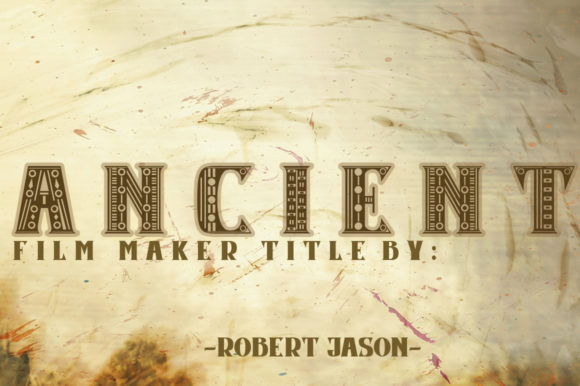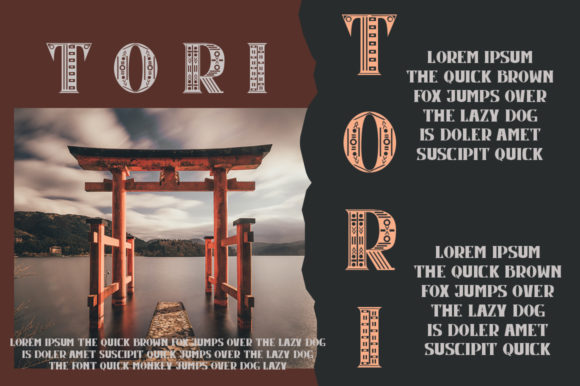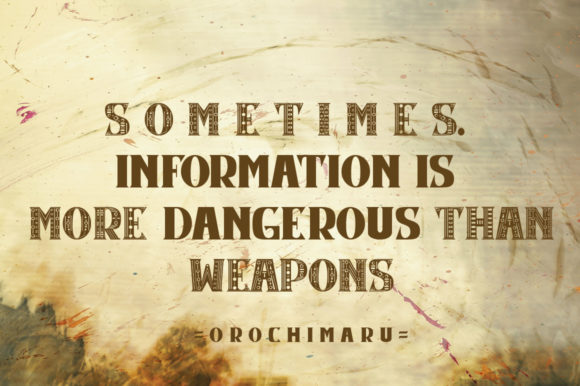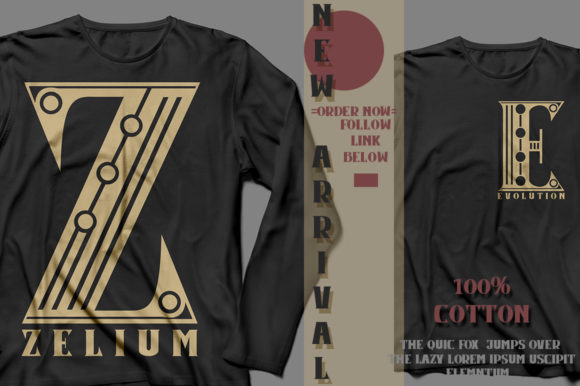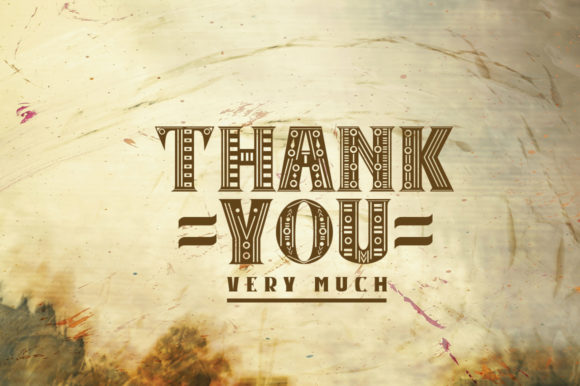
Introduction to Athenos Font
Have you ever stared at a blank page, waiting for inspiration to strike? For designers, that moment is a familiar one. But what happens when that spark of creativity hits, and you know exactly what you want to create – a bold, eye-catching logo, a flyer that screams excitement, or a social media post that stands out from the crowd? That’s where the Athenos Font comes in – a game-changing design resource that’s about to revolutionize your creative projects.
With its futuristic characters and sleek aesthetic, the Athenos Font is the perfect tool for adding a touch of high-quality style to your work. Whether you’re a seasoned pro or just starting out, this font is a valuable addition to your design arsenal – and the best part? It’s free to download and customize to your heart’s content, making it the ideal choice for designers looking for a hassle-free, transparent background solution.
Key Features of Athenos Font
- High-quality design resource suitable for various creative projects, including logos, branding materials, and digital art.
- Unique characteristics include its modern and elegant aesthetic, making it perfect for high-end branding and creative projects.
- Designed to be highly legible and visually appealing, even at small font sizes, ensuring that your design stands out.
Honest Review: Athenos Font
I’ve been experimenting with various design resources, and the Athenos Font caught my attention. As a designer, I appreciate a high-quality font that can elevate my creative project to the next level. In this review, I’ll share my honest thoughts on what works well and what could be improved.
- High-quality glyphs: The Athenos Font boasts crisp and clean glyphs, making it perfect for any design project.
- Transparent background: The font’s transparent background makes it easy to use with any design element.
- Limited character set: The font’s character set is limited, which may not be ideal for designers who need a wide range of characters.
- No bold or italic styles: The font only comes in a regular style, which may limit its versatility.
Overall, the Athenos Font is a solid choice for designers who need a high-quality font for their creative project. While it has its limitations, its free download and transparent background make it a great resource to have in your design arsenal.
Athenos Font
The Athenos Font is a versatile and high-quality design resource ideal for creative projects. With its sleek and modern aesthetic, it’s perfect for adding a touch of sophistication to your designs.
Tips for Getting the Most Out of Athenos Font
To get the most out of the Athenos Font, be sure to use it on a transparent background for a clean and modern look. You can also experiment with different font sizes and colors to create a unique and eye-catching design.
The Athenos Font is ideal for a variety of creative projects, including logos, business cards, and social media graphics. It’s also a great choice for presentations and documents where a high-quality font is needed.